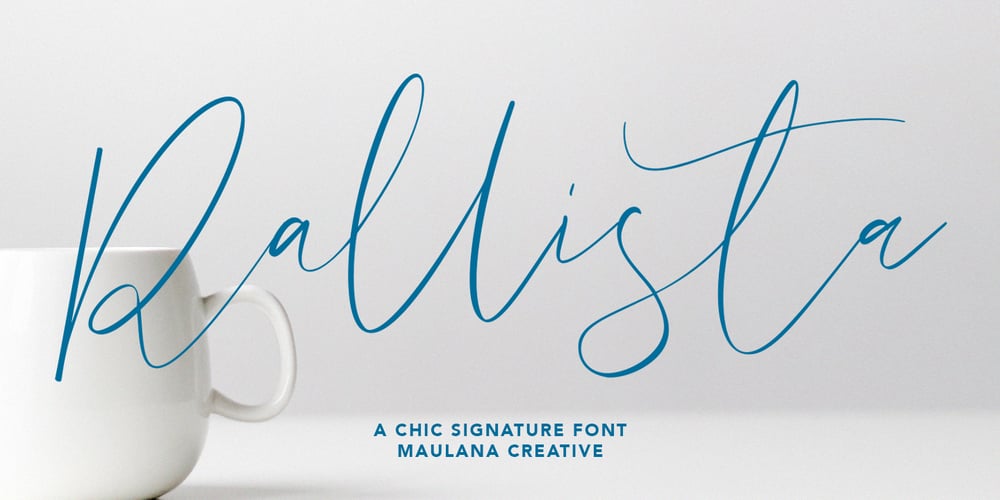
Rallista
Rallista font
Rallista Font Family was designed by Gilang Maulana and published by Maulana Creative. Rallista contains 1 styles and family package options. Give your designs an authentic handcrafted feel. “Rallista Chic Signature Font” is perfectly suited to signature, stationery, logo, typography quotes, magazine or book cover, website header, clothing, branding, packaging design and more.